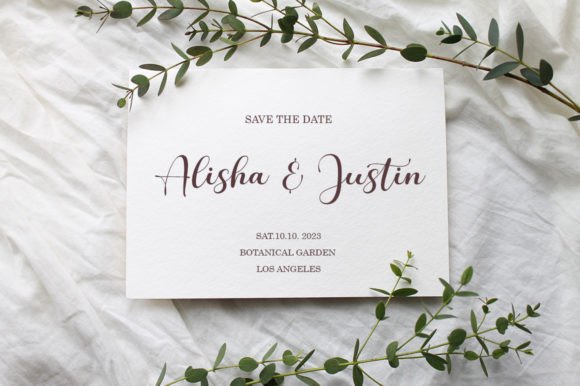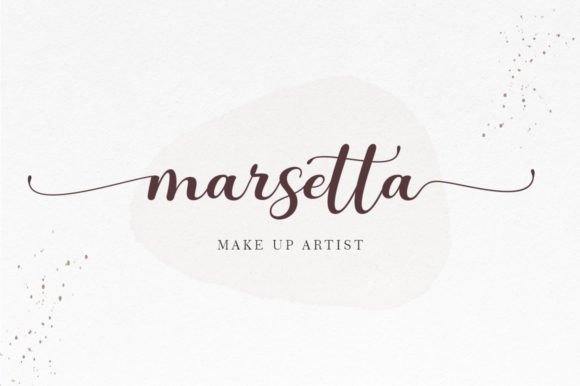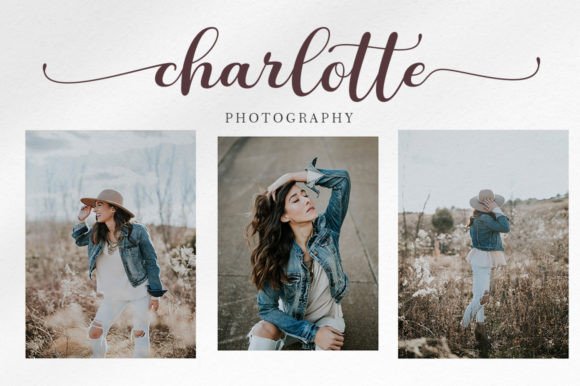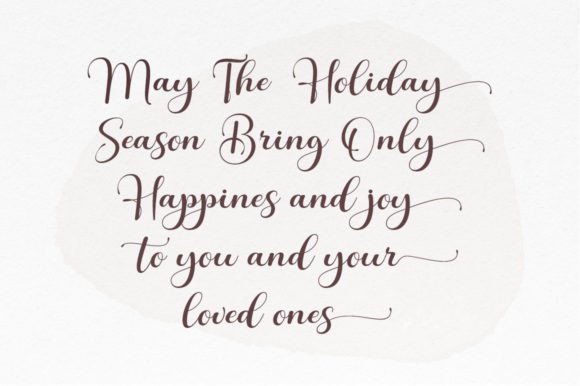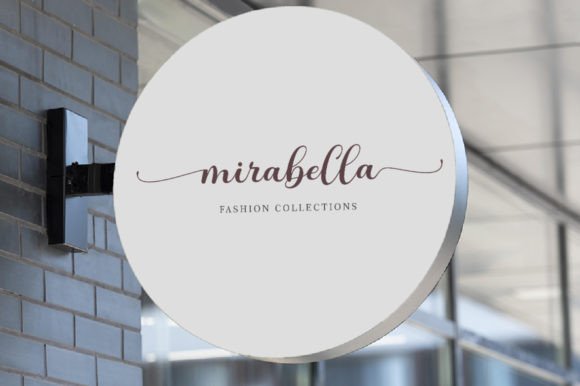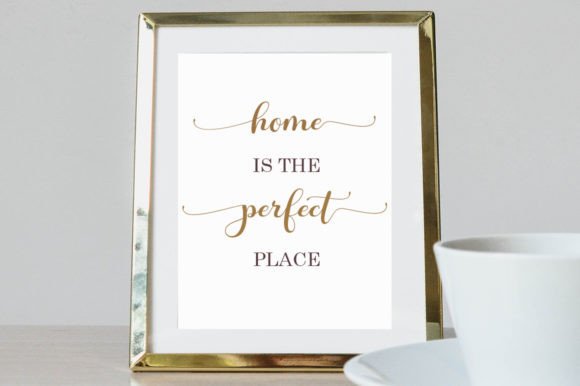
Introducing Amsterria Font: Elevate Your Designs with Elegance and Versatility
In the world of typography, a font can make or break a design. For designers and crafters looking for that perfect touch of elegance and sophistication, Amsterria Font is an exceptional choice. This beautiful script font is not just a typeface; it’s a design companion that can elevate any project from ordinary to extraordinary. With its natural flow, elegant appearance, and versatility, Amsterria is poised to become a favorite in your font collection.
The Beauty of Amsterria Font
Amsterria Font stands out with its script style that exudes a sense of luxury and refinement. Its letters are designed to flow naturally, creating a harmonious look that is both eye-catching and sophisticated. Whether you’re working on a branding project, a product design, or a creative craft, Amsterria brings a level of elegance that can enhance any visual communication.
Many Alternative Styles for Endless Creativity
One of the key features of Amsterria Font is its extensive range of alternative styles. This variety allows designers to experiment with different looks and feels, ensuring that their project stands out. From subtle variations to more dramatic swashes, Amsterria provides the flexibility needed to tailor your design to your exact vision. This versatility makes it an ideal choice for a wide array of applications, including:
- Invitations: Make your event invitations memorable with a touch of elegance.
- Product Packaging: Elevate your brand with sophisticated packaging designs.
- Product Design: Add a luxurious feel to your products with custom typography.
- Crafters: Perfect for handmade products, offering a personal and unique touch.
- Labels: Stand out with elegant labels for your products or organizing needs.
- Photography: Use Amsterria as watermarks for a professional look.
- Logos & Branding: Create a lasting impression with a distinctive and elegant logo.
Why Choose Amsterria Font?
Choosing Amsterria Font for your design projects comes with numerous benefits:
- Elegance and Versatility: Offers a sophisticated look with a wide range of styles.
- Wide Application Range: Suitable for various design projects, from digital to print.
- Time-Saving: Quickly find the perfect style without compromising on quality.
Amsterria Font is more than just a script font; it’s a design solution that brings elegance, versatility, and creativity to your projects. Whether you’re a professional designer or a crafter looking to add a personal touch to your work, Amsterria is an excellent choice. Its range of alternative styles, combined with PUA encoding for easy access, makes it a valuable asset in your design toolkit. Elevate your designs with the sophistication and charm of Amsterria Font, and discover the difference it can make in your creative endeavors.